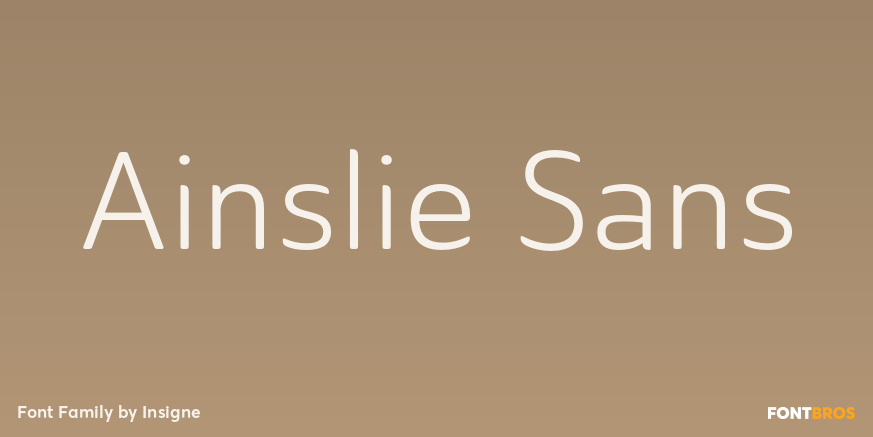
Ainslie Sans
About Ainslie Sans
Say g\’day to Ainslie Sans, insigne Design\’s new typeface. Like its big brother, the new face incorporates a mix of influences from Oz, although Sans is pared down from the original semi-serif. The original Ainslie was inspired by Mt. Ainslie and the…